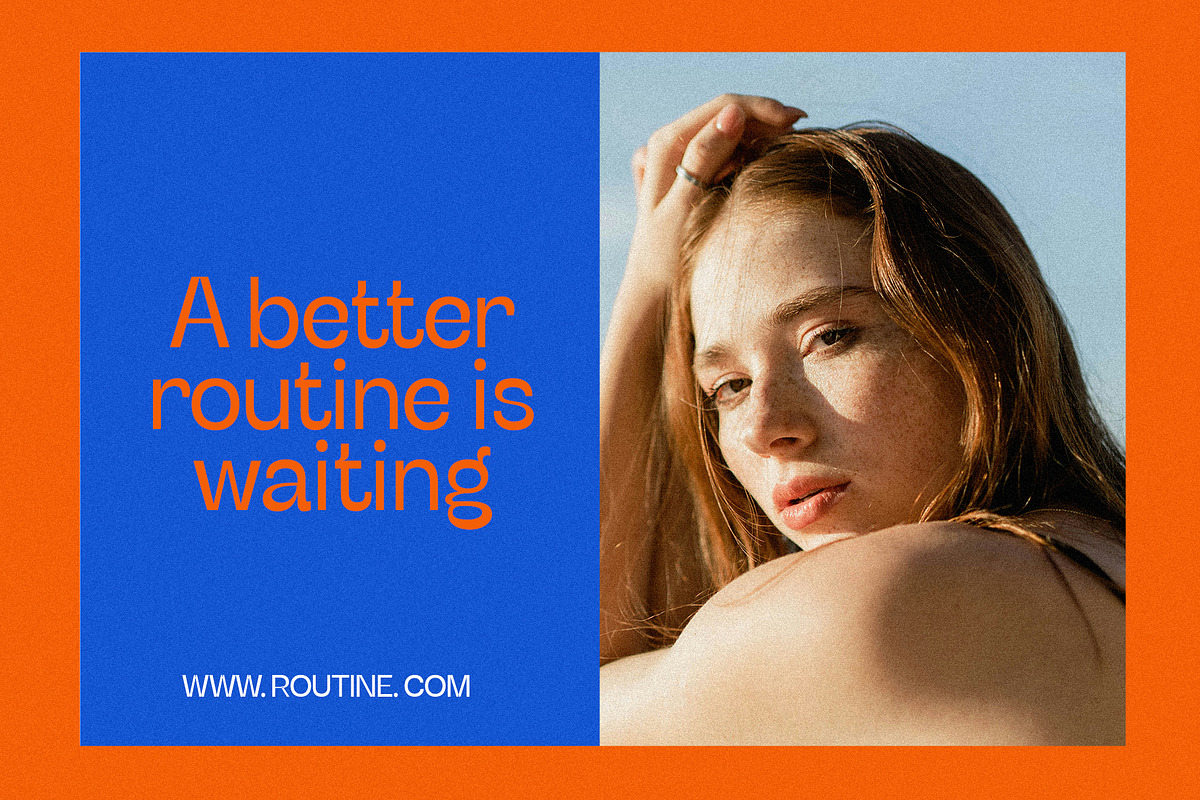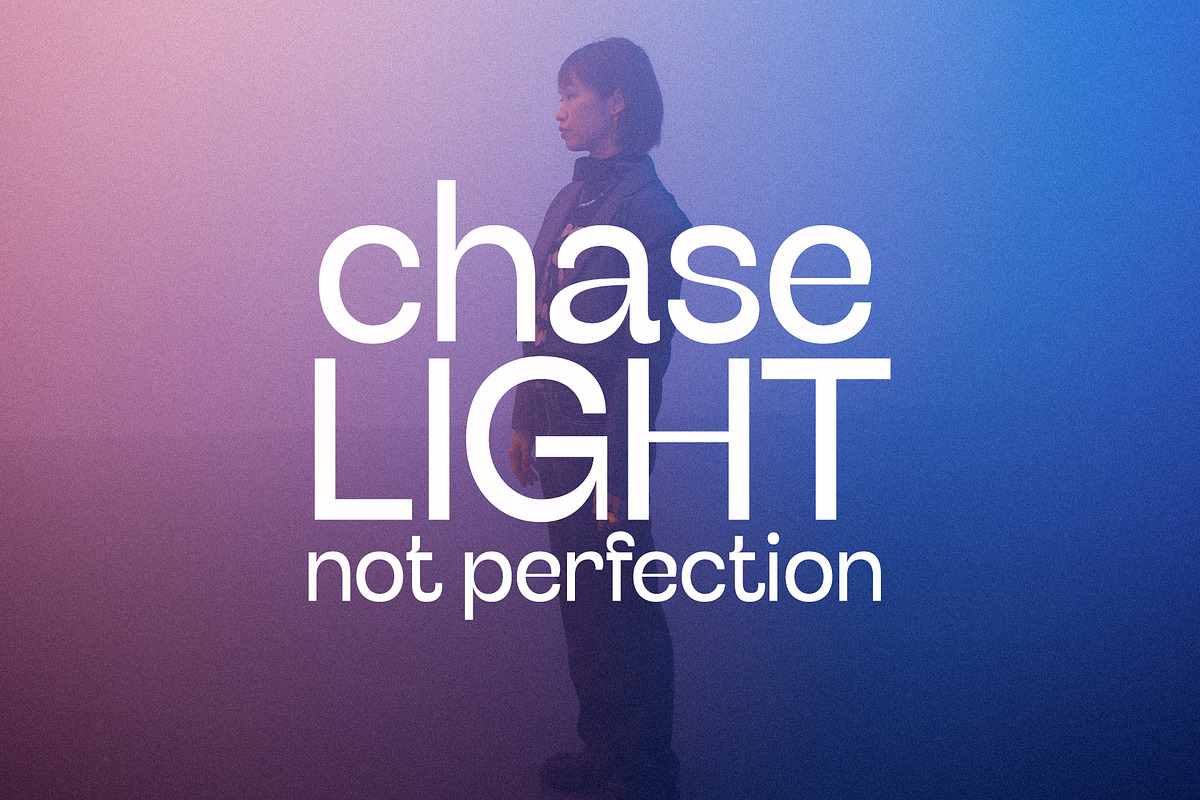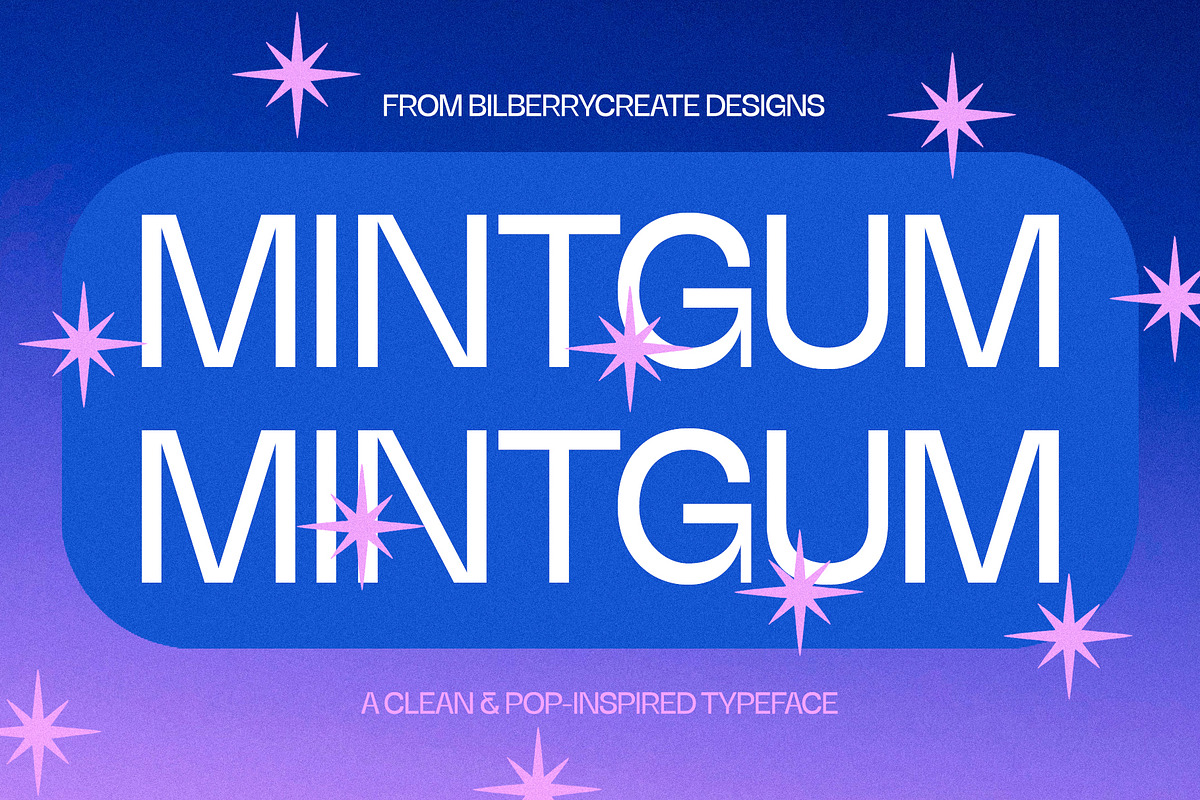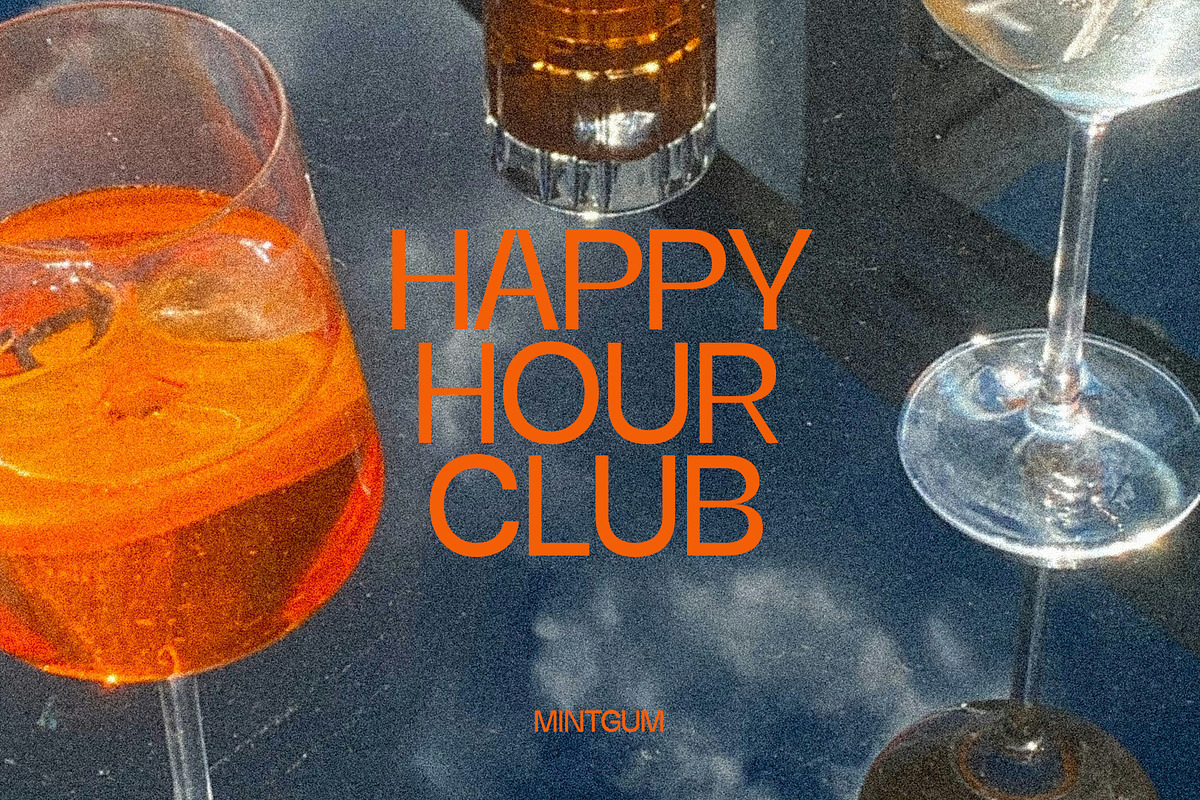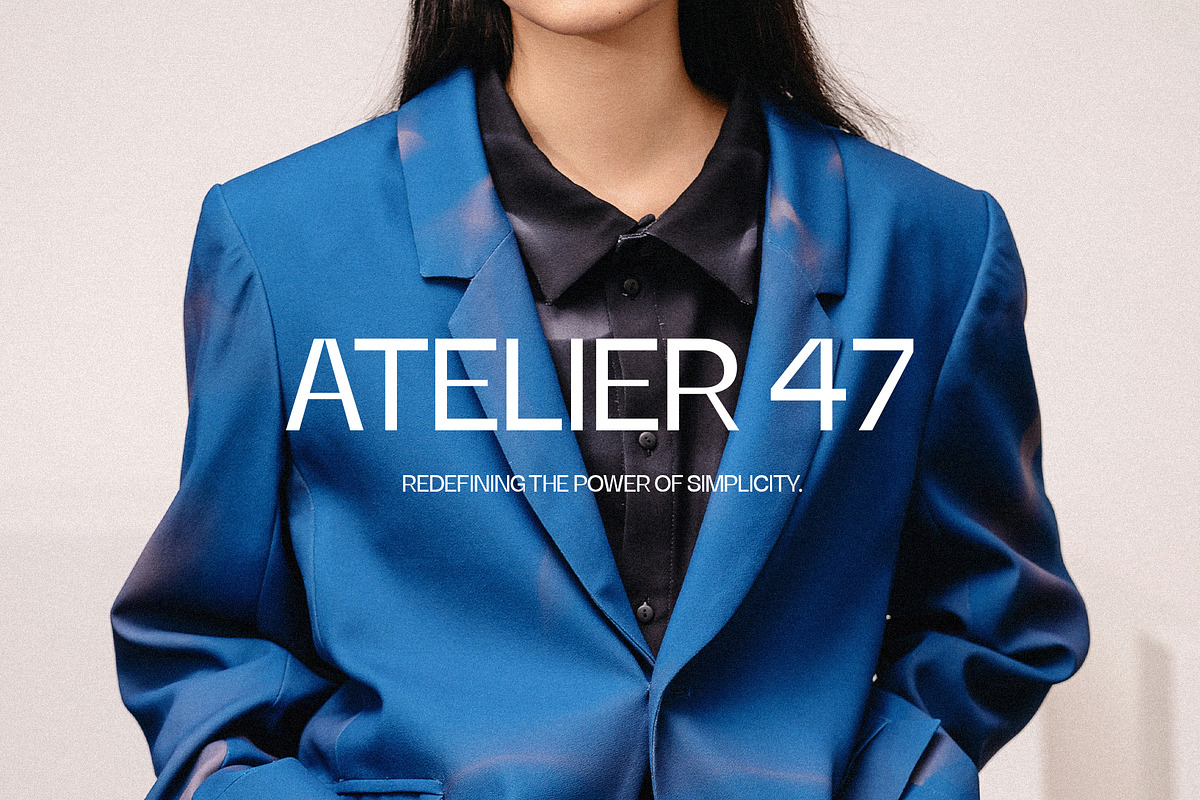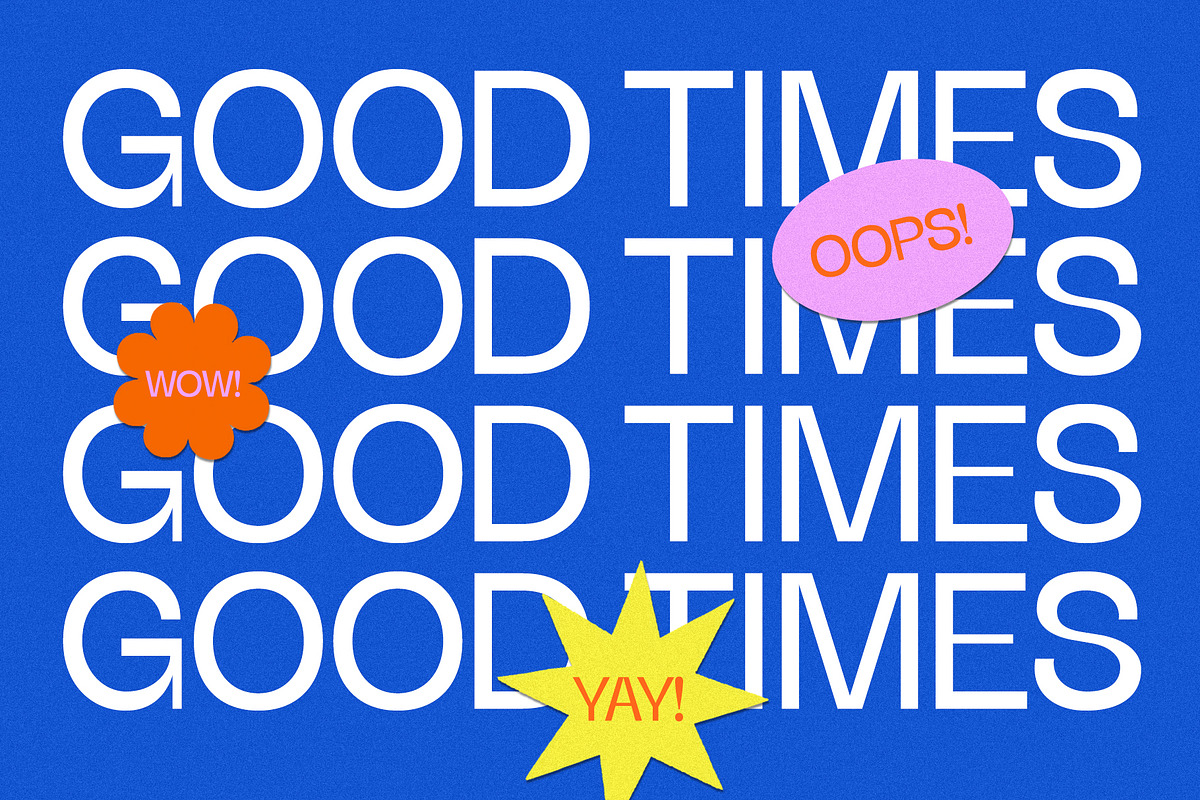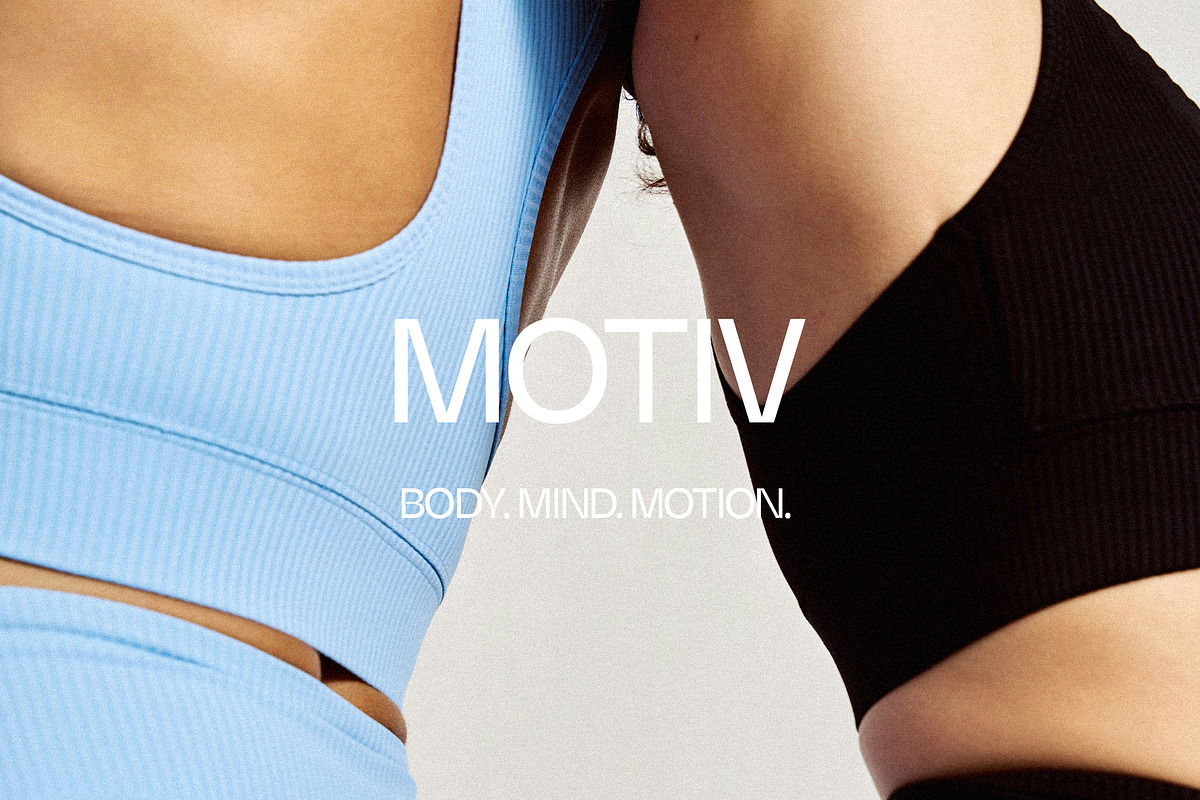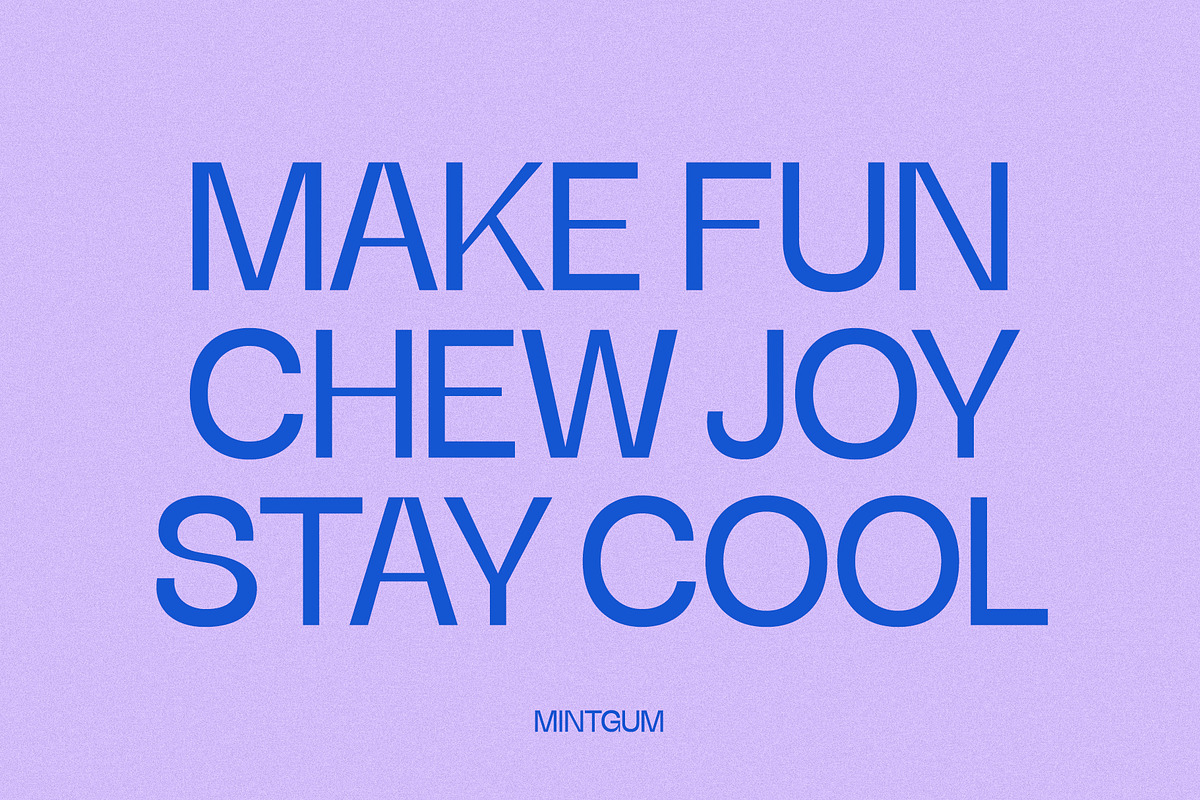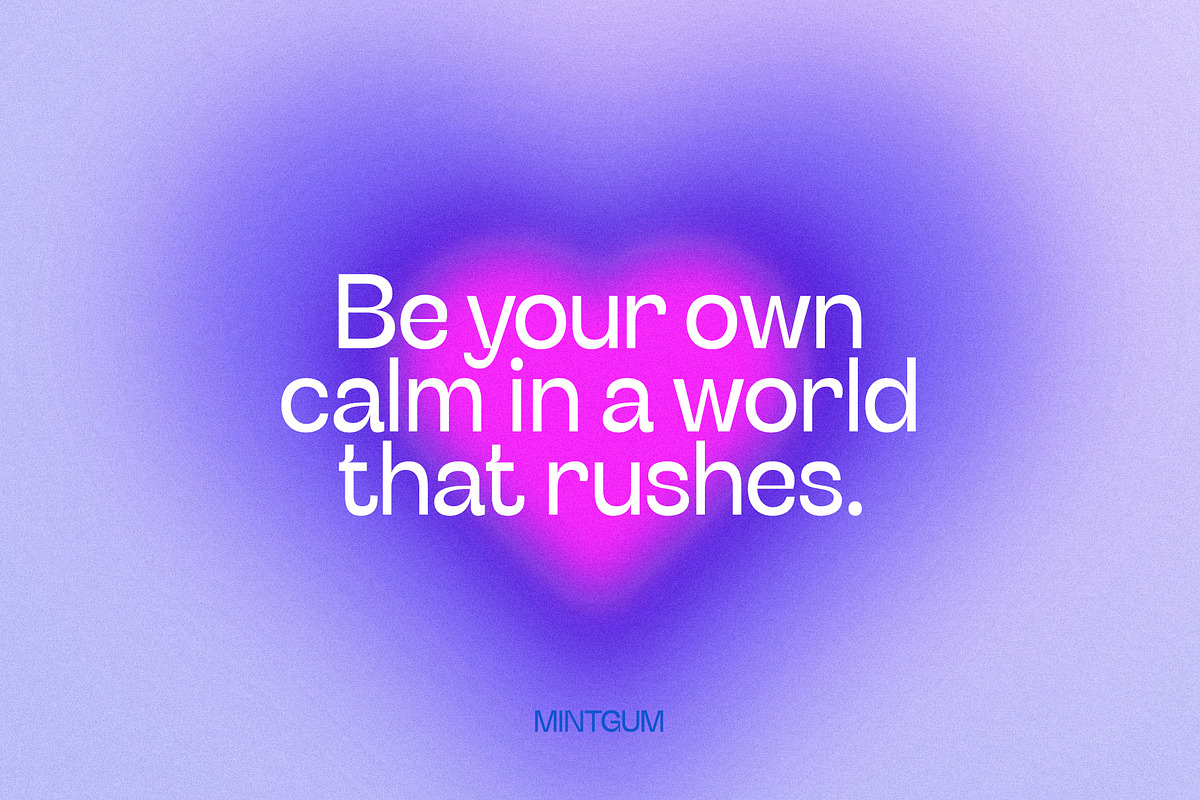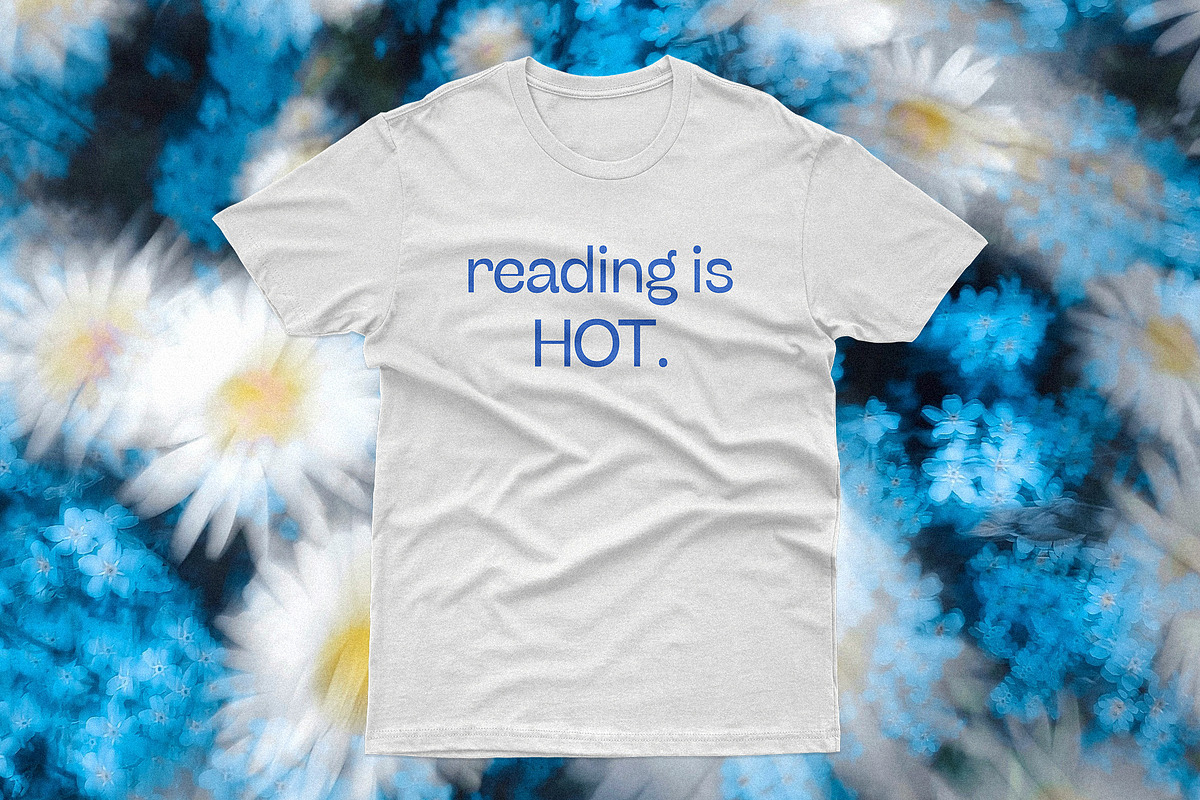
Mintgum Pop Display
Mintgum - A Clean & Pop-Inspired Typeface
Meet Mintgum, a playful sans-serif typeface inspired by bubblegum pop aesthetics, soft candy tones, and bold modern design. Perfect for branding, packaging, posters, social media, and editorial layouts, Mintgum brings a fresh, upbeat vibe to any creative project.
Ideal for headlines and logos. Bring your designs to life with Mintgum - sweet, modern, and full of fun energy.